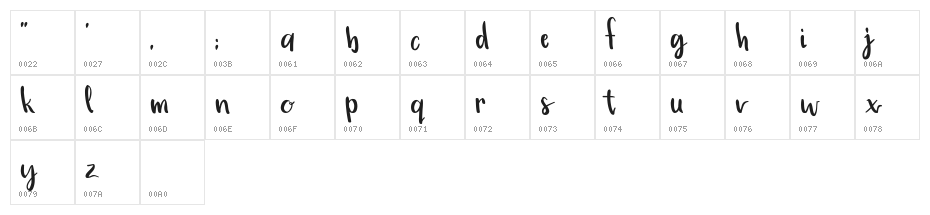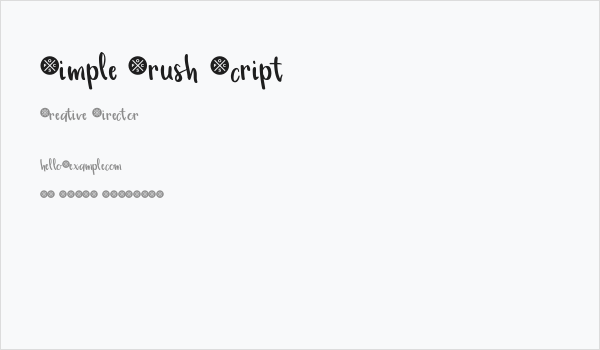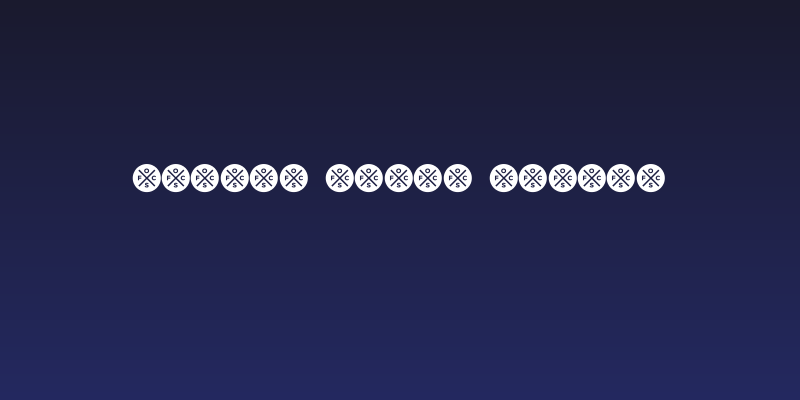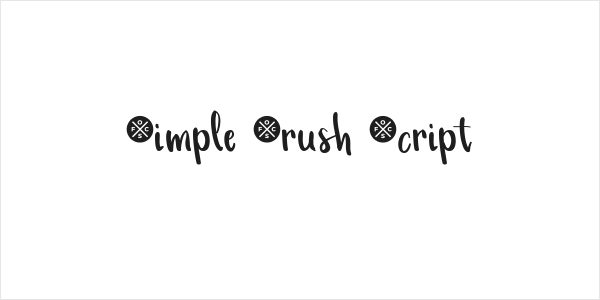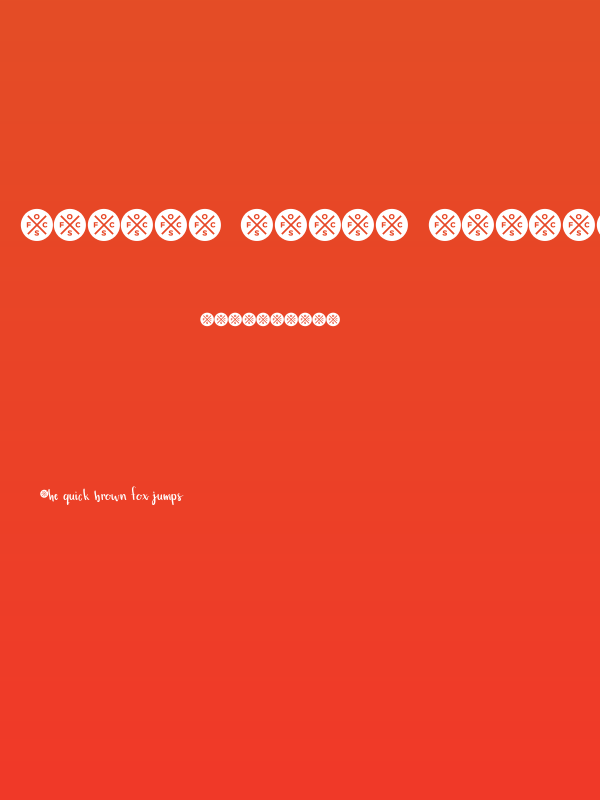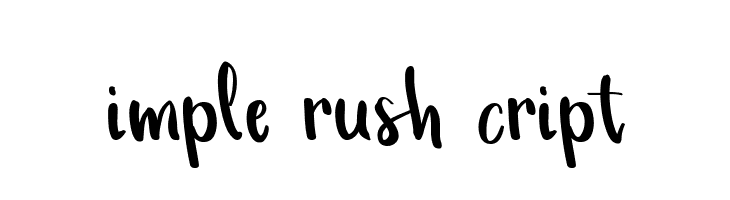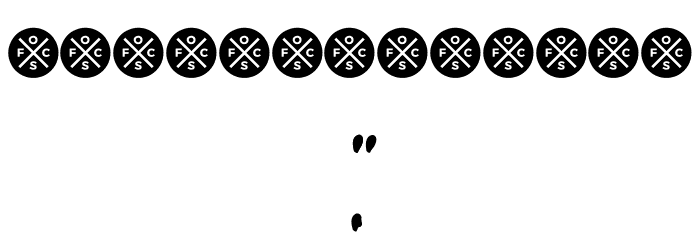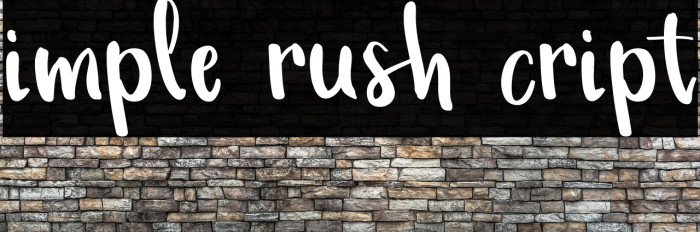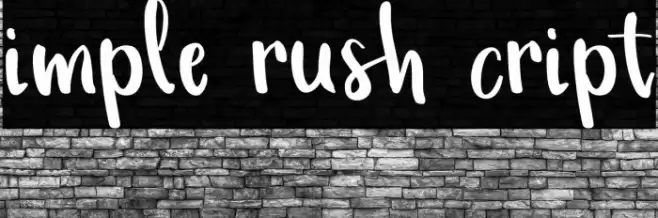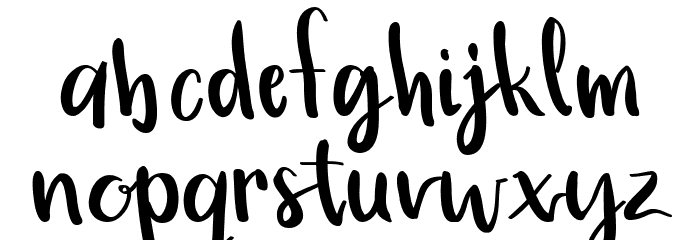
Simple Brush Script Font
| 全体的なスタイル | Casual, Handwritten |
| 用途 | Logos, Invitations, Greeting Cards |
| おすすめプロジェクト | Perfect for invitations, greeting cards, personal branding, and creative projects needing a warm, personal touch. |